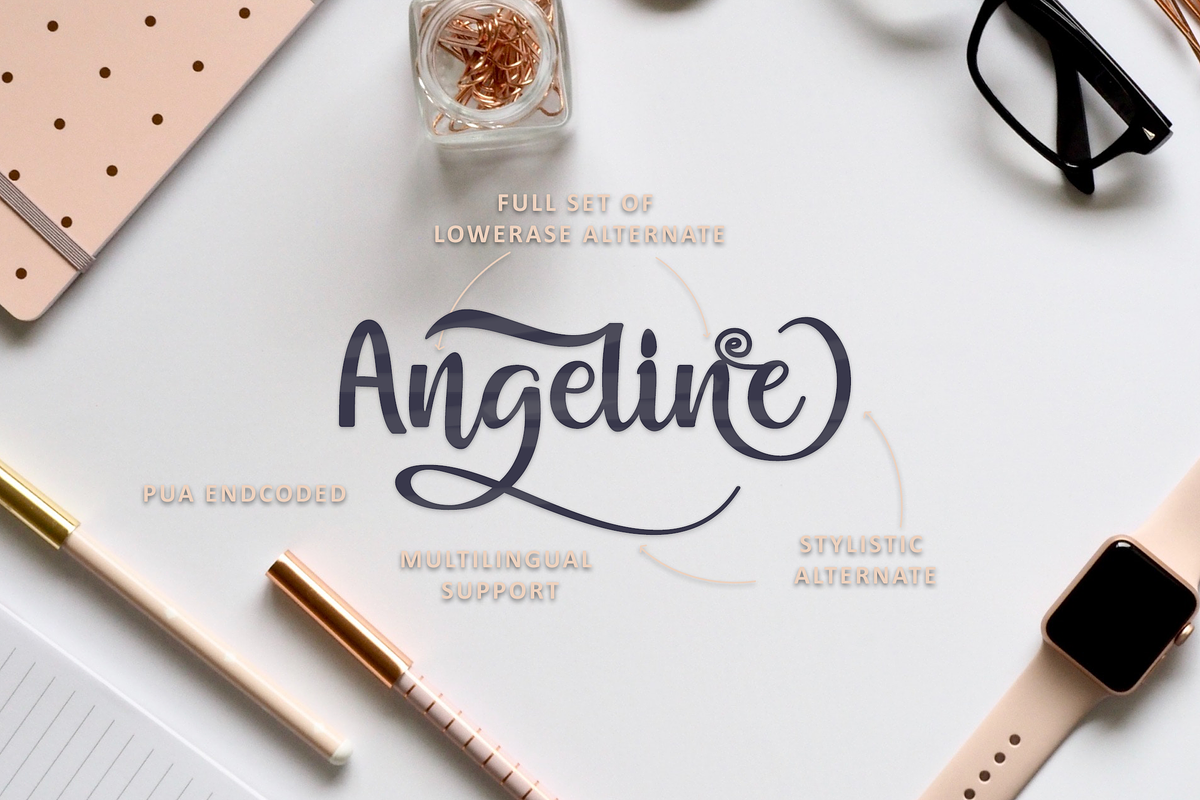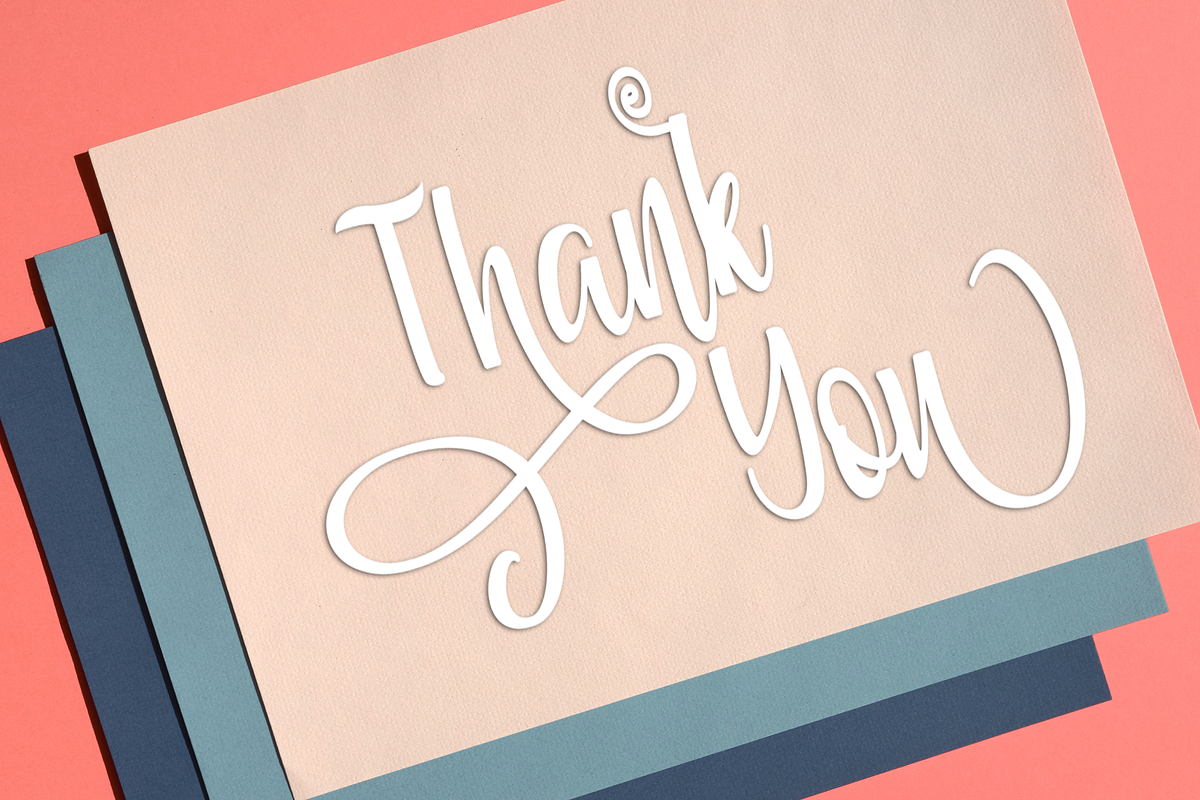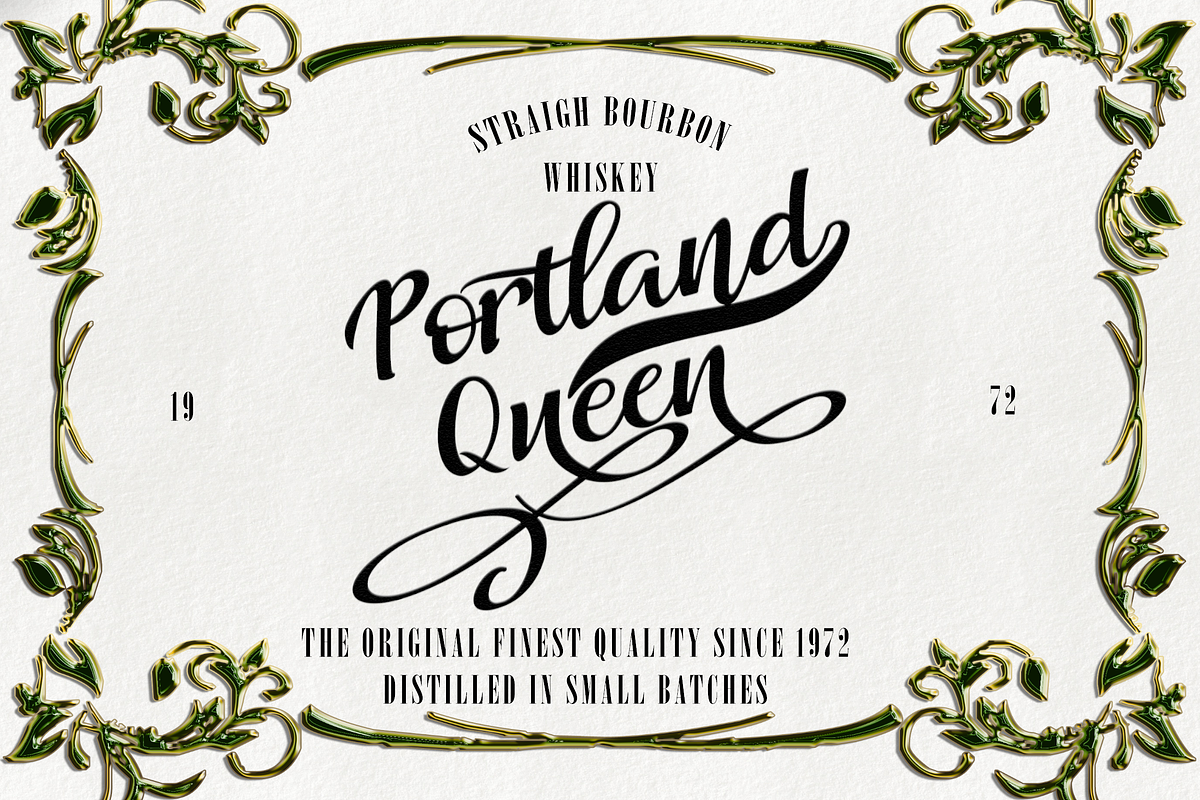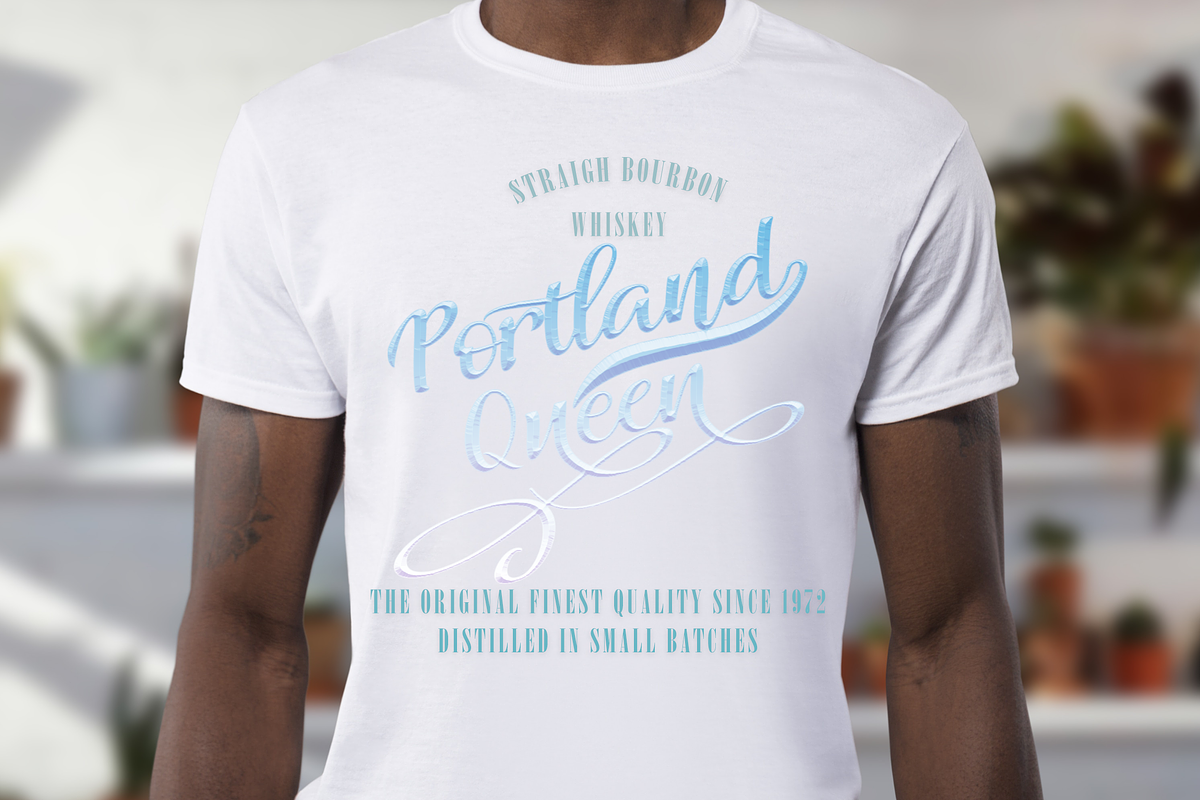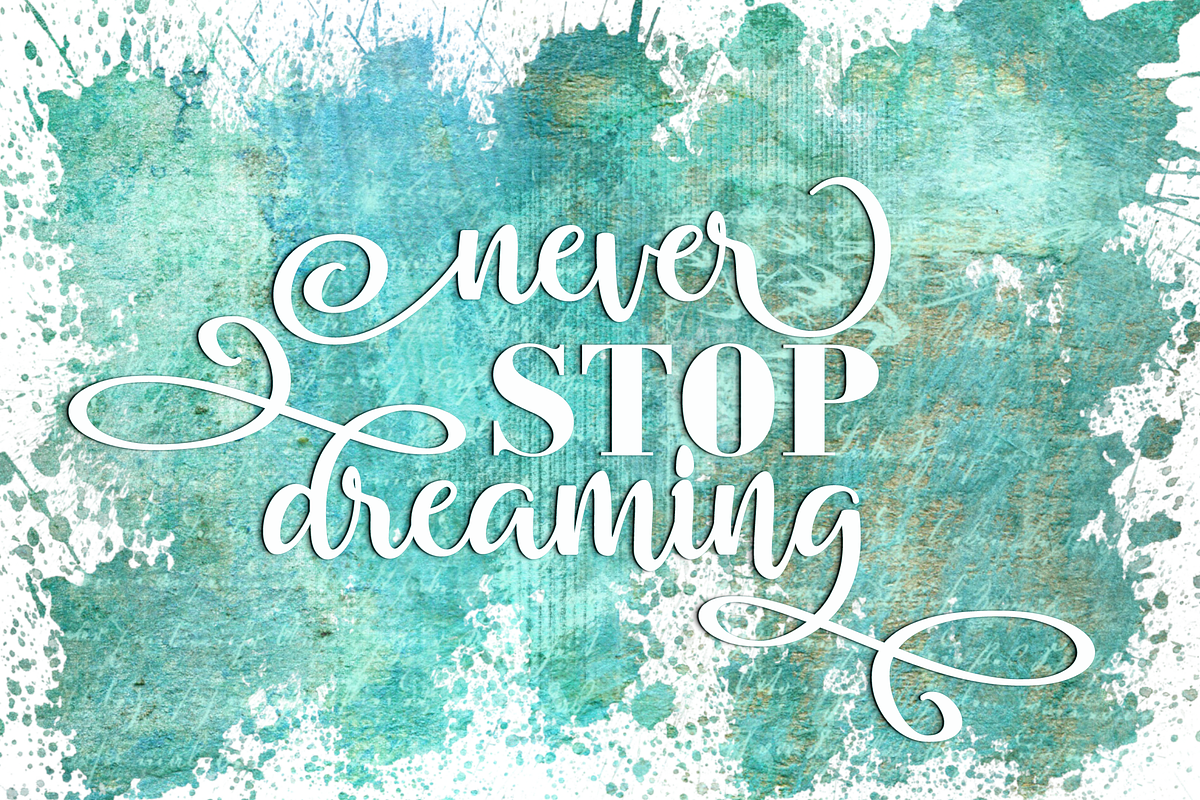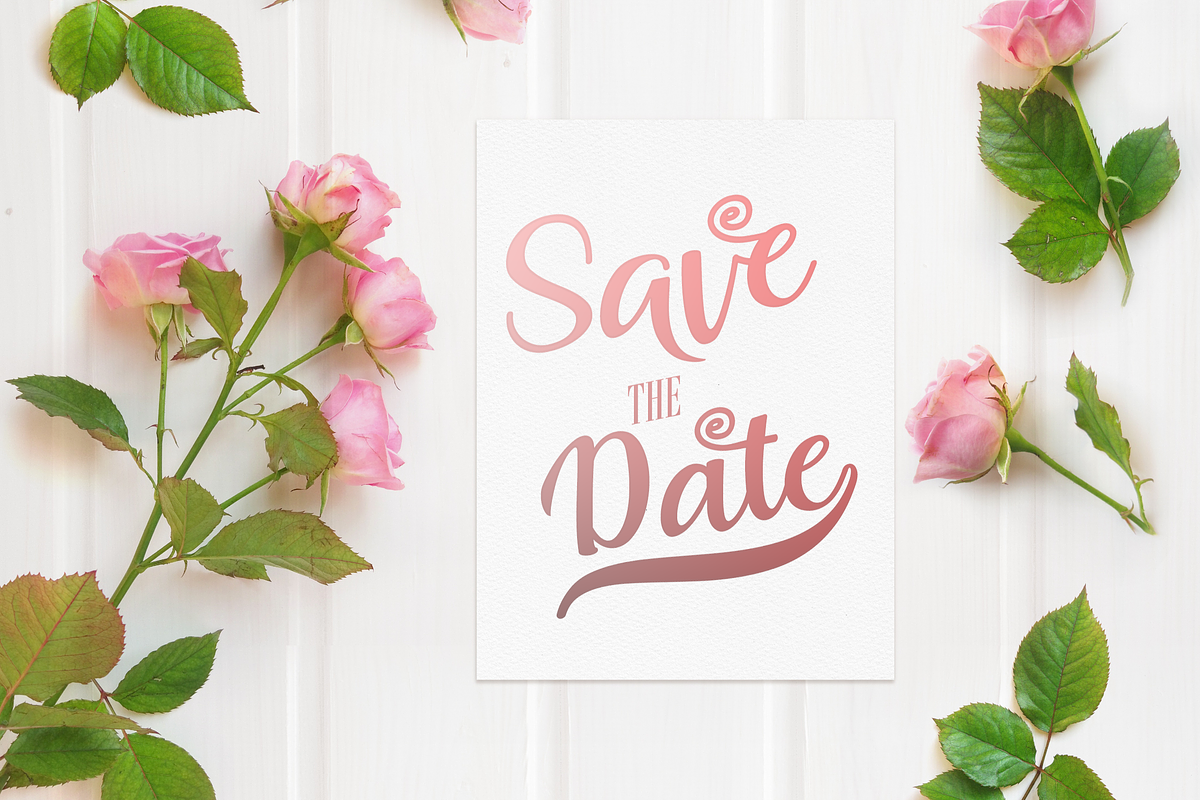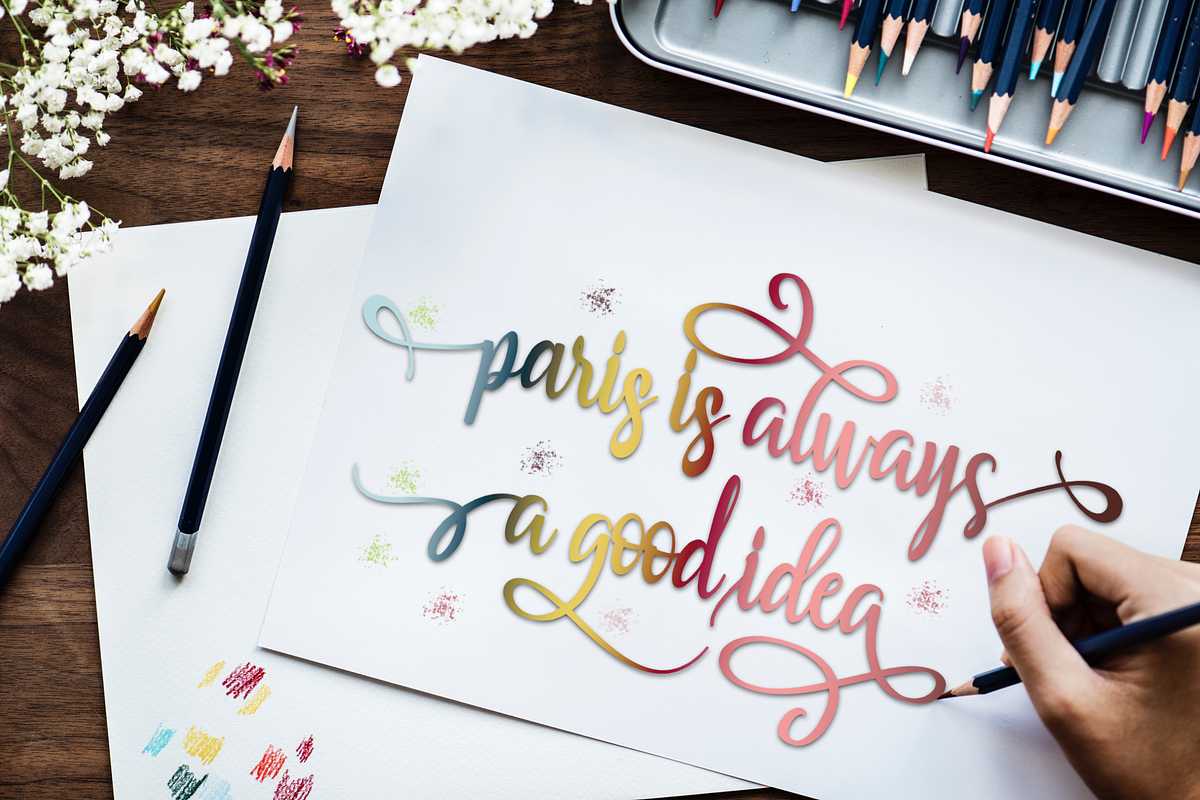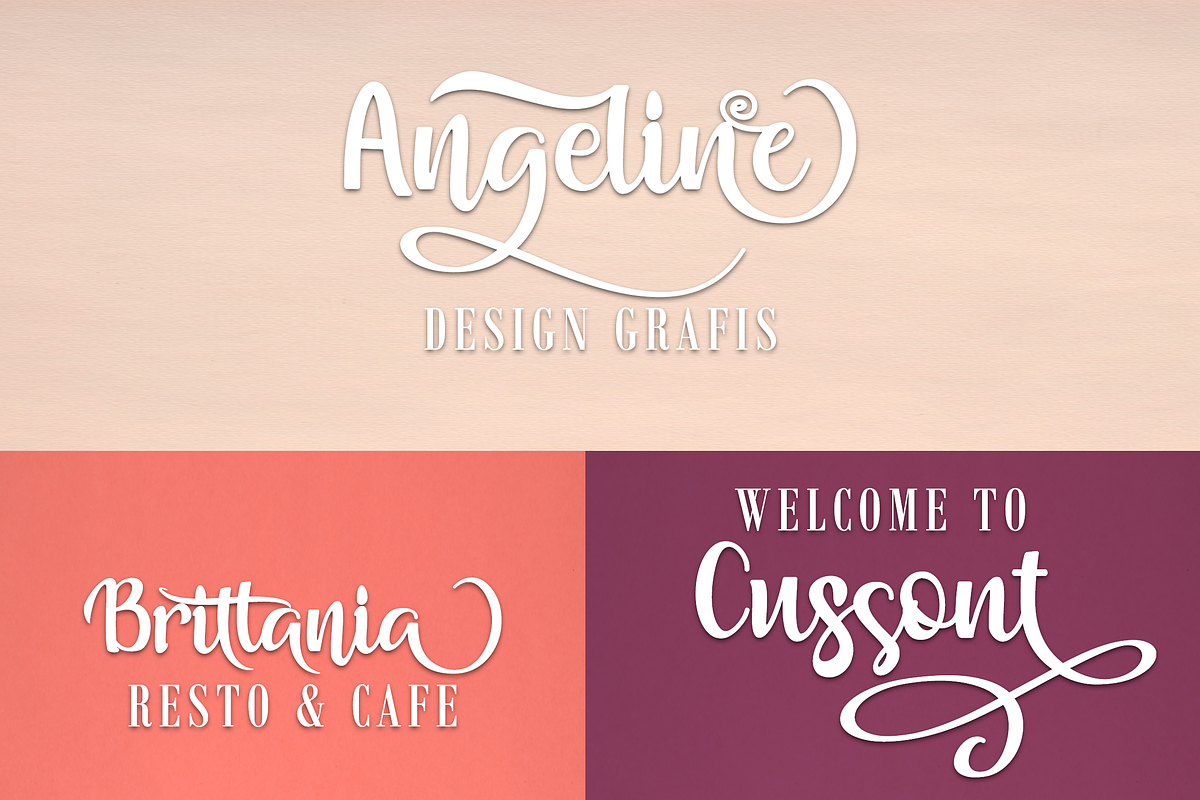
Muliana script
Introducing
Muliana Script
Muliana Script a new fresh & modern script with a handmade calligraphy style, decorative characters and a dancing baseline! So beautiful on invitation like greeting cards, branding materials, business cards, quotes, posters, and more!!
Muliana Script come with 750+ glyphs. The alternative characters were divided into several Open Type features such as Swash, Stylistic Sets, Stylistic Alternates, Contextual Alternates. The Open Type features can be accessed by using Open Type savvy programs such as Adobe Illustrator, Adobe InDesign, Adobe Photoshop Corel Draw X version, And Microsoft Word. And this Font has given PUA unicode (specially coded fonts). so that all the alternate characters can easily be accessed in full by a craftsman or designer.
Muliana Script :
Uppercase & Lowercase International Languange & Symbols Support Punctuation & Number PUA Unicode Range Standard Stylistic Alternates Stylistic Set 1-30 Character Variant Contextual.